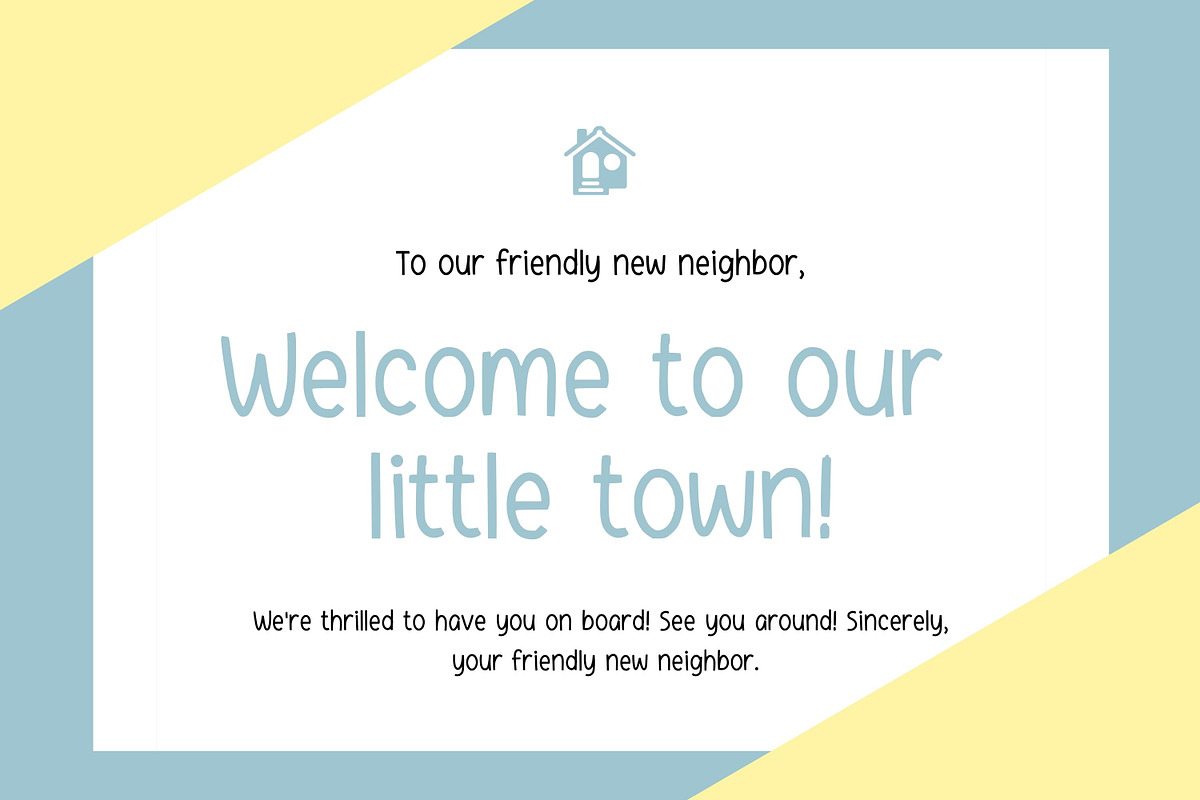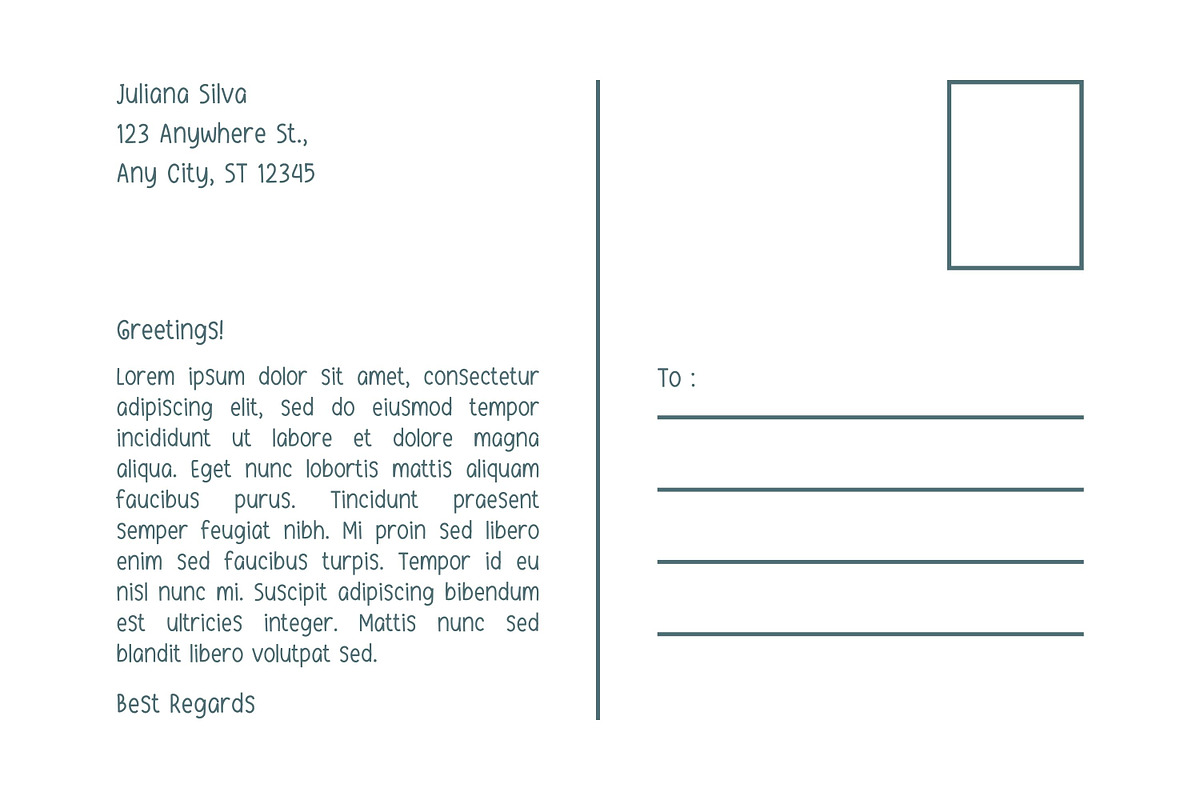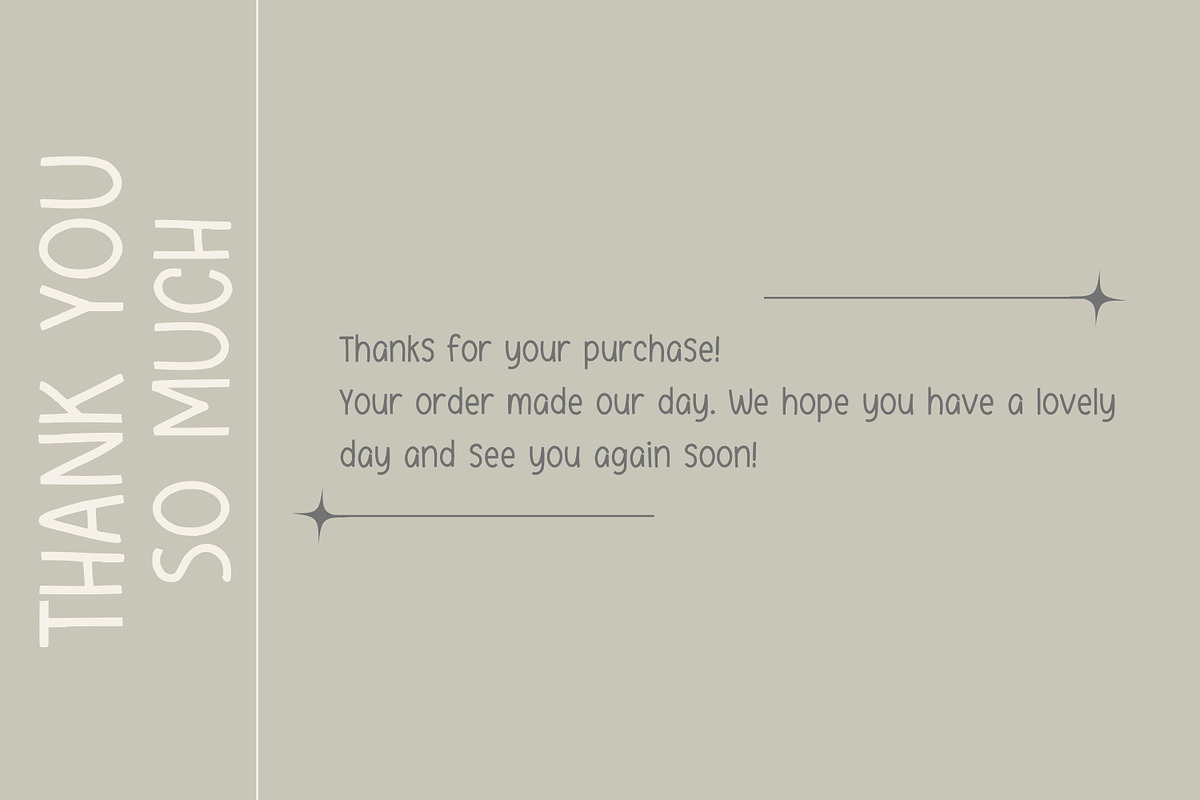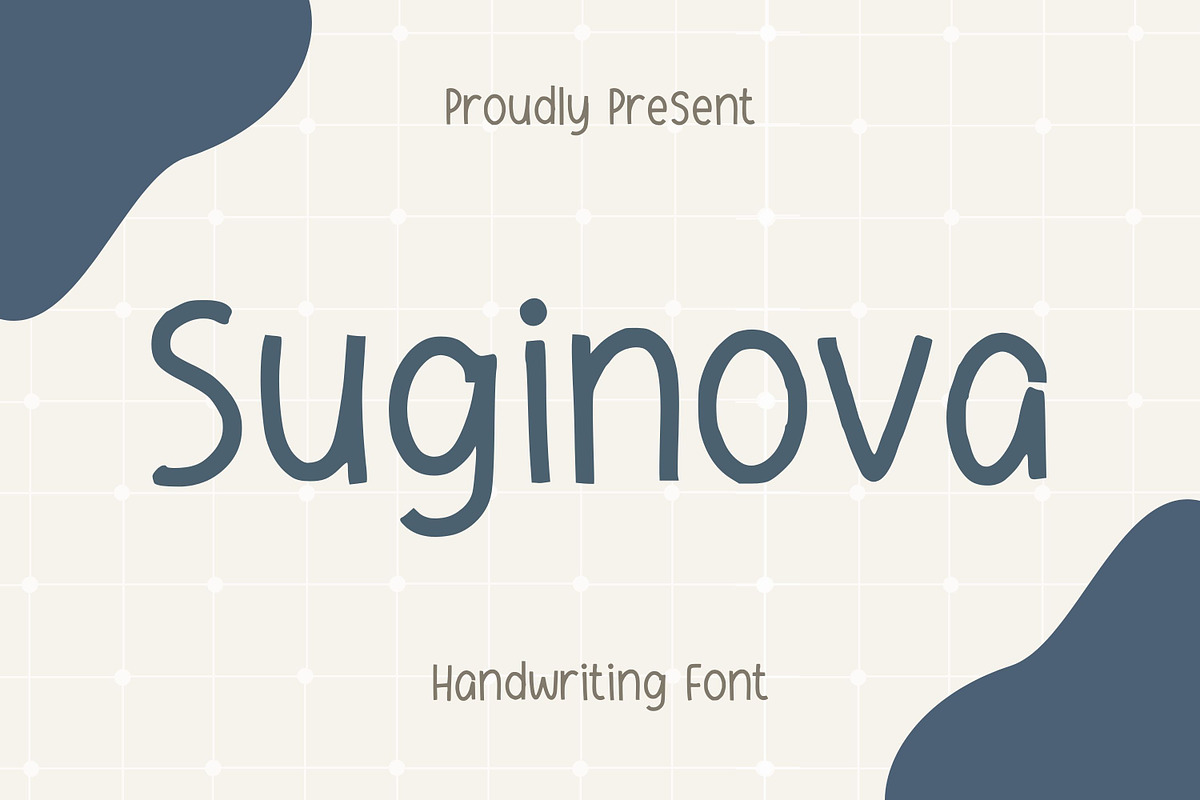
Suginova
Introducing Suginova, a uniquely captivating handwriting font with a distinctive allure. Marrying the ebb and flow of classic penmanship with the deftness of a digital design, it traces out subtle contours in smoothly connective strokes. Ideal for diverse projects, this font excels in bringing a refined edge to long-form texts, amplifying academic creativity, and making school assignments stand out. Suginova is a testament to versatility, harmonizing practicality with sheer aesthetic appeal. Take your writings from commonplace to exquisite with this distinguished typeface, converting everyday content into spectacular masterpieces.